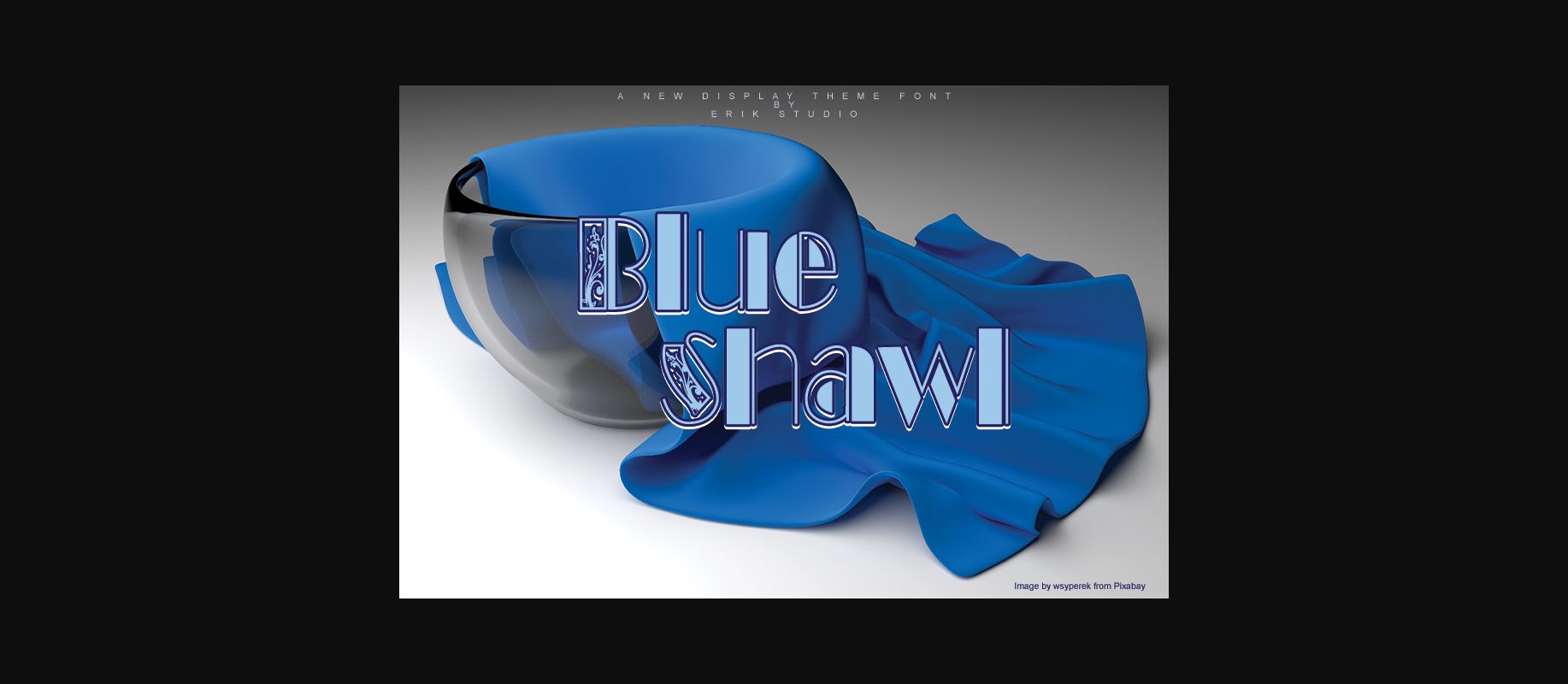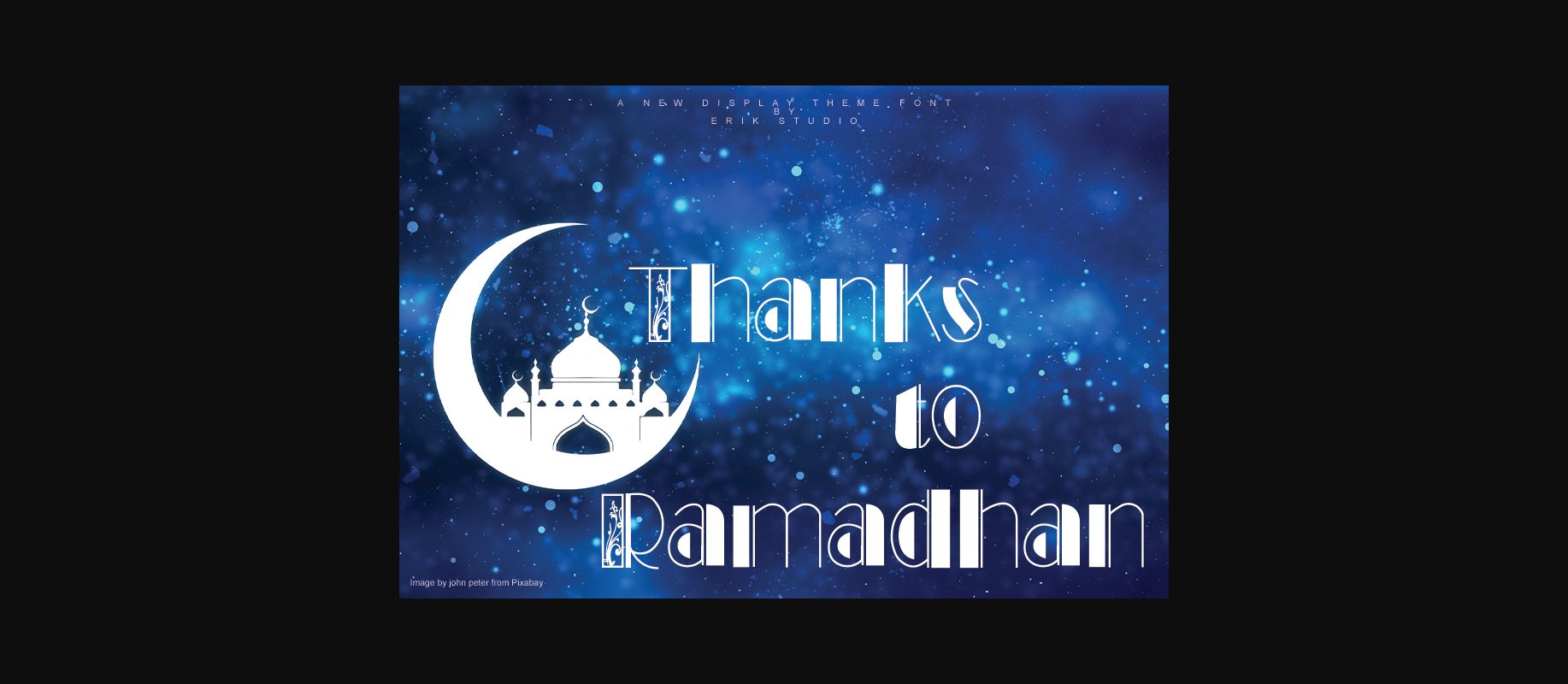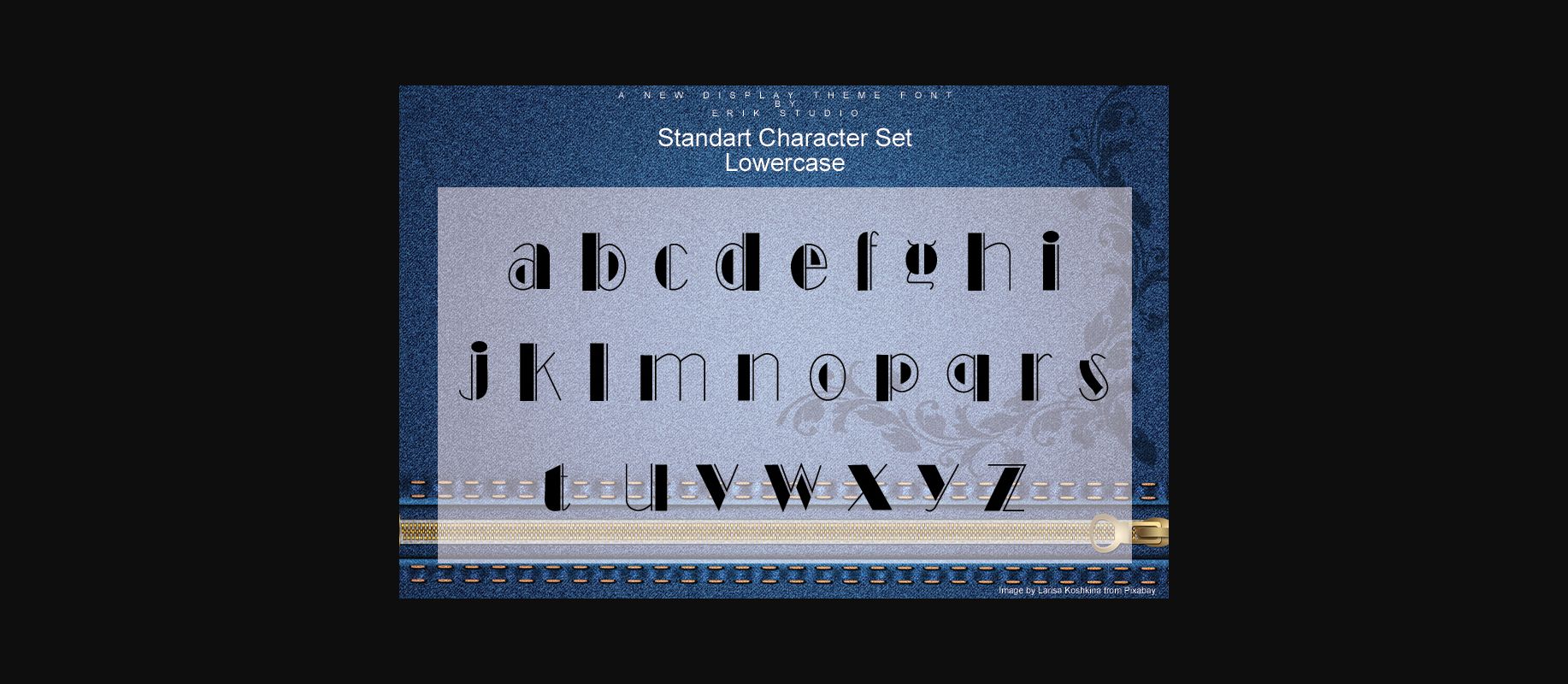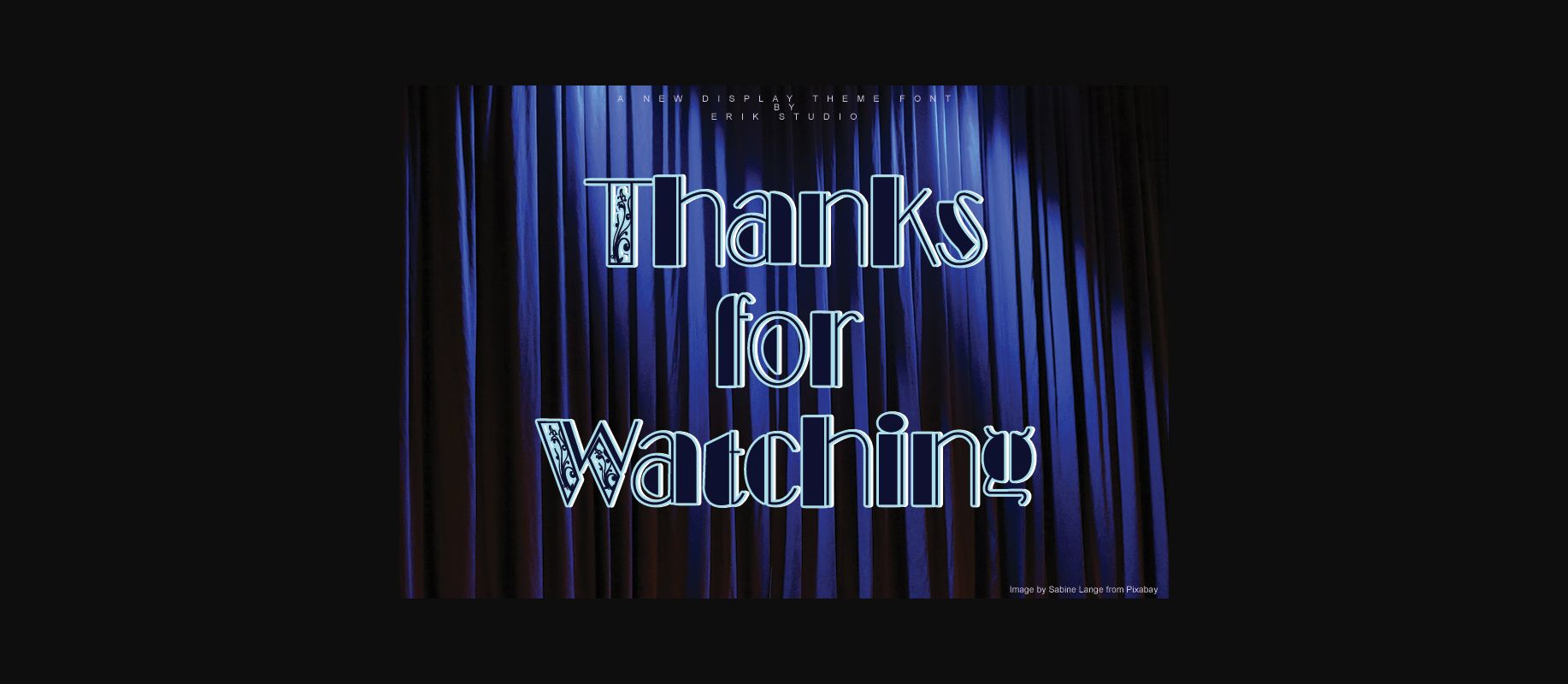
Blue Shawl Font
Blue shawl is a cute & friendly decorative font. Get inspired by its incredibly youthful feel. Add this chunky lettered font to your designs and notice how it makes them come alive!